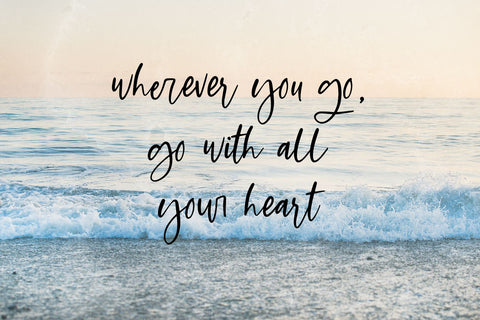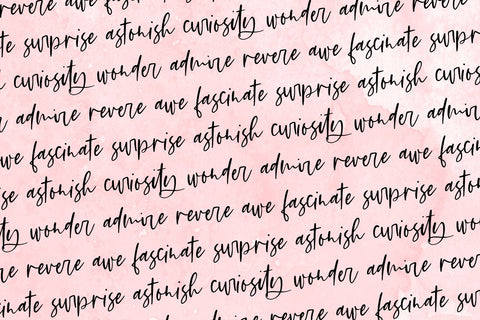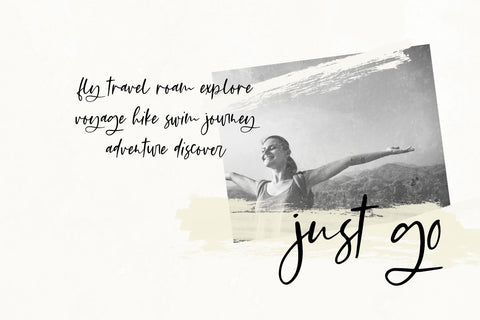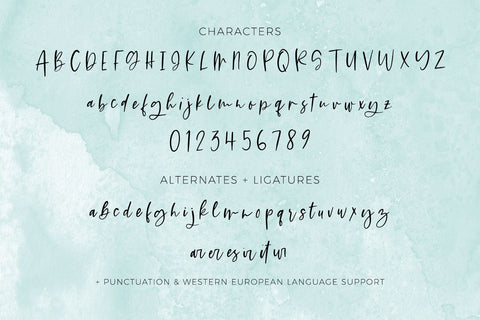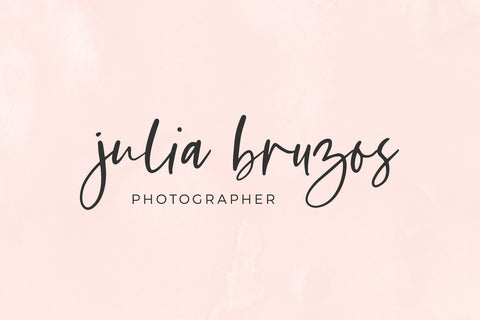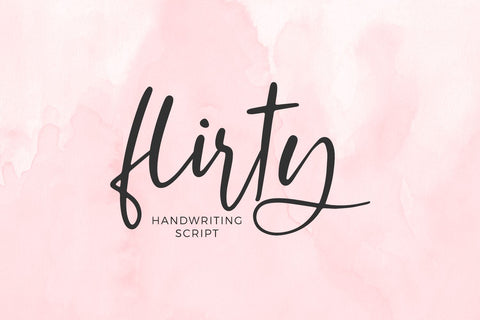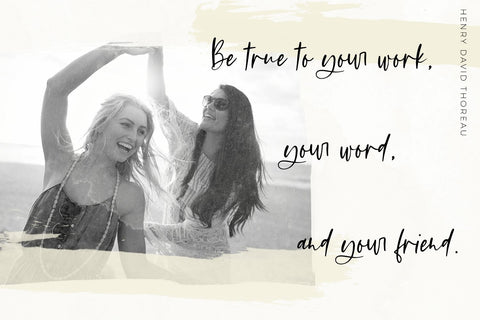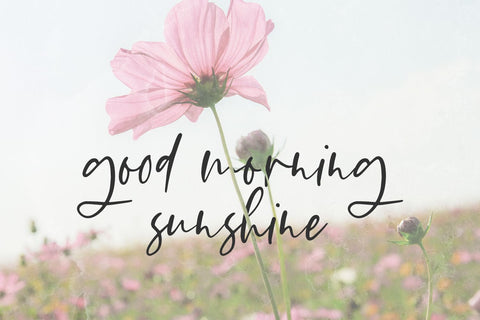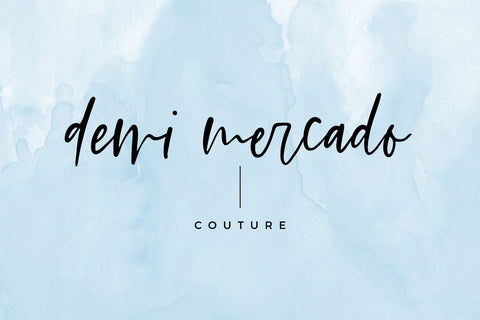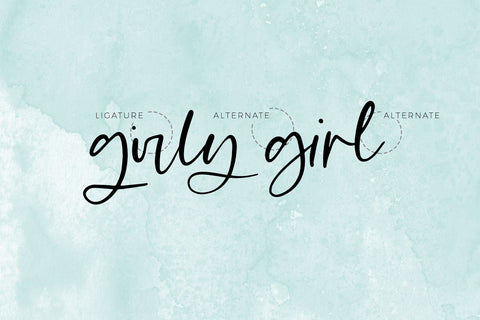
Flirty Script Font
Introducing Flirty Script, a cute, fun handwritten font. Flirty Script has a feminine aesthetic, and if she had a face, she’d be winking at you. Flirty includes a set of lowercase alternates and a few ligatures so that you can customize your text just a bit more!
Flirty Script is an excellent fit for:
- logo design + branding projects
- print design, like magazines & flyers that need a bold feminine script
- header elements + websites that draw attention
- quote graphics for social media
- crafting with a Silhouette or Cricut machine - it has a super clean edge for easy cutting!
Flirty Script includes:
- full upper + lowercase characters
- numbers + punctuation
- Western European Language Support
- 26 alternates
- 6 ligatures